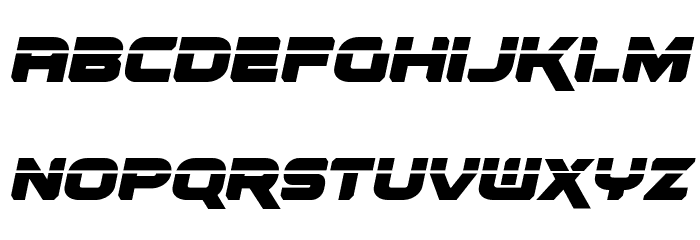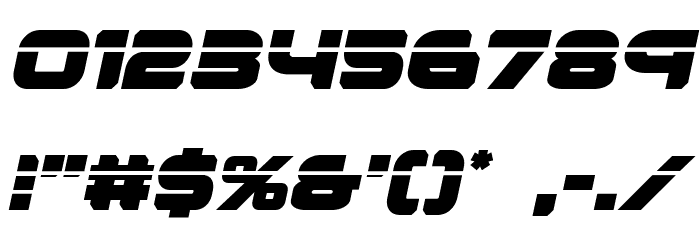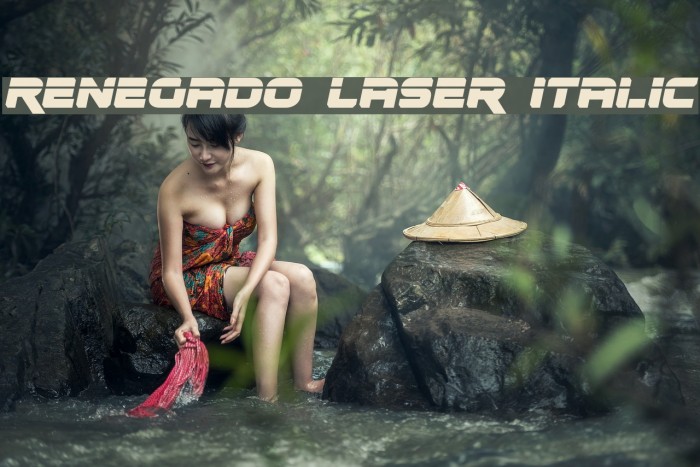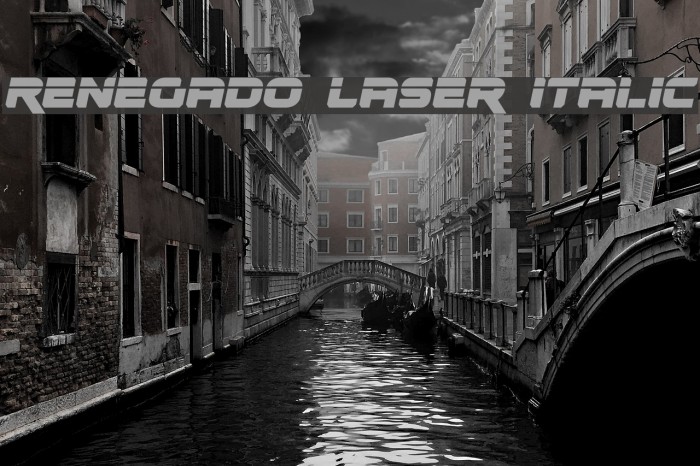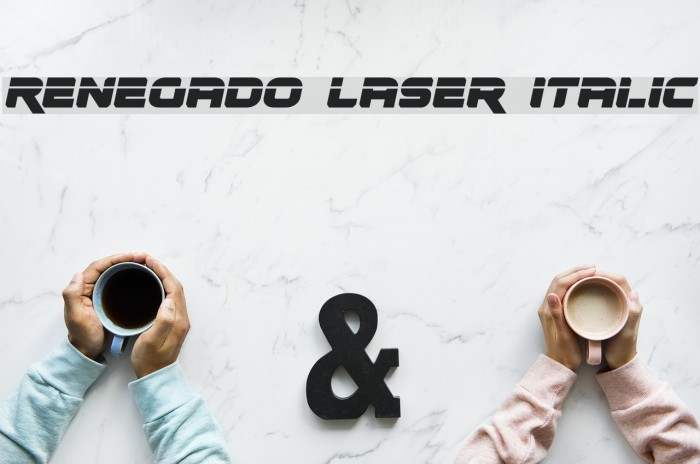
Renegado Laser Italic Font
This font features a futuristic and dynamic design with a strong emphasis on angular shapes and sharp edges. The characters are italicized, giving them a sense of motion and speed. The bold strokes and geometric forms create a striking visual impact, making it ideal for attention-grabbing headlines and modern design projects. The uppercase and lowercase letters maintain a consistent style, with numbers and special characters following the same aesthetic. The font's unique style is reminiscent of sci-fi themes and digital interfaces.
A bold, italicized font with a futuristic, angular design.
- Proposed Projects: Ideal for sci-fi themed posters, video game titles, tech branding, and futuristic UI designs.
- Overall Style: Futuristic